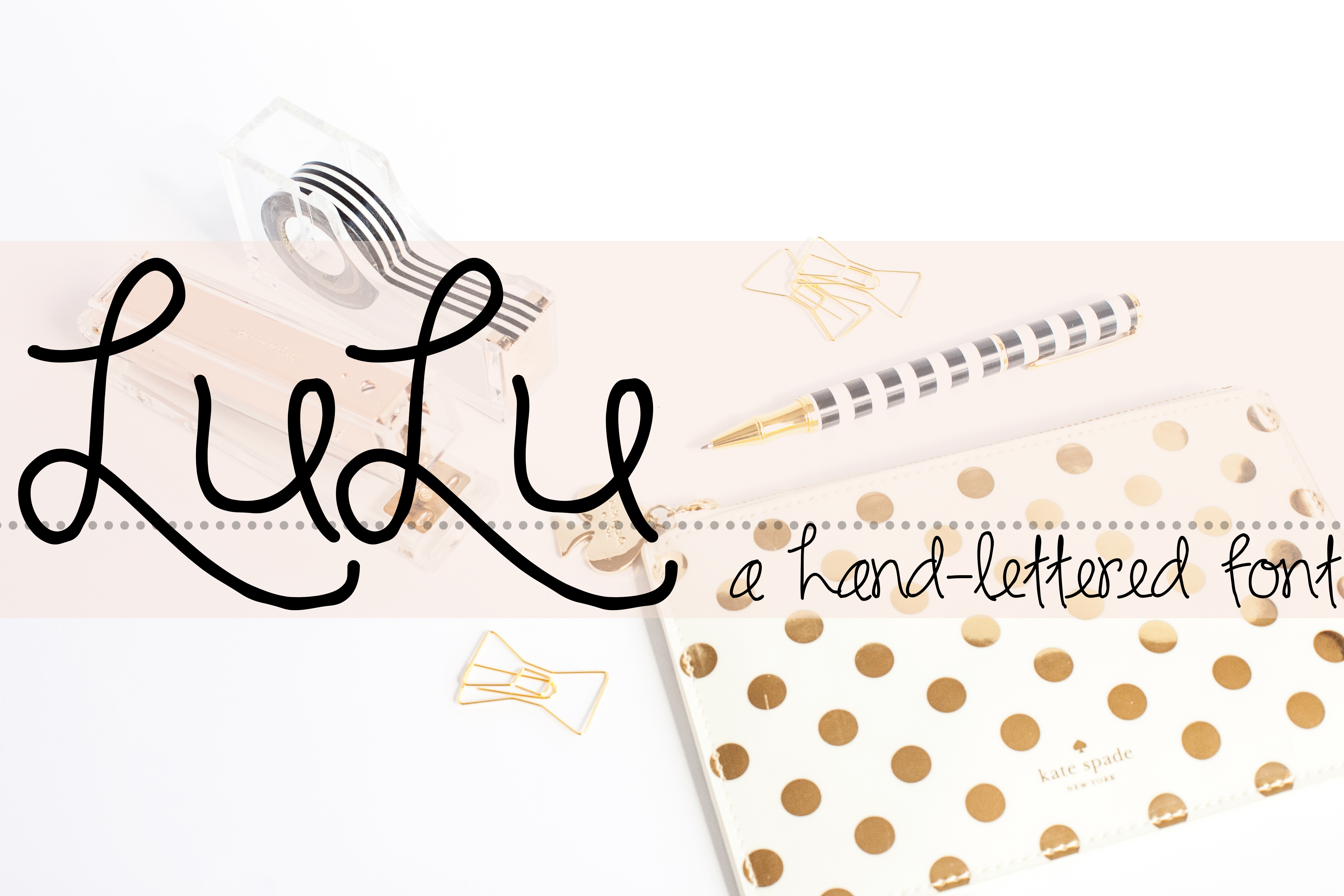
LULU Hand Lettered Font
LuLu is a fun-loving, bouncy, little hand-lettered font! Available in TTF file, this font has a full alphabet, numbers, and symbols.